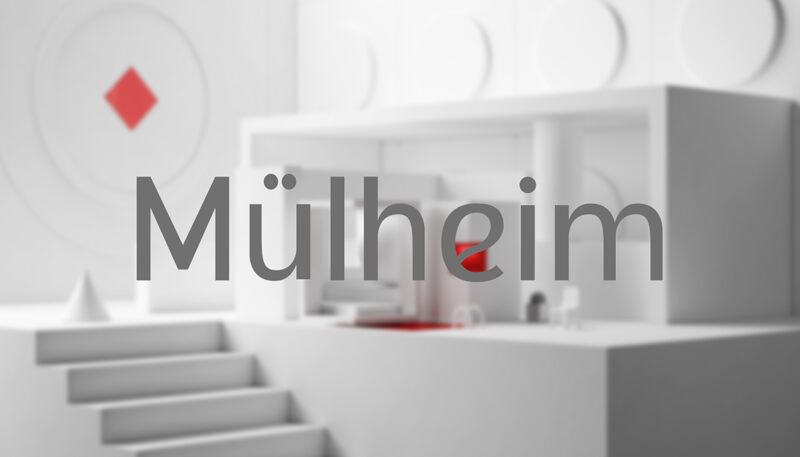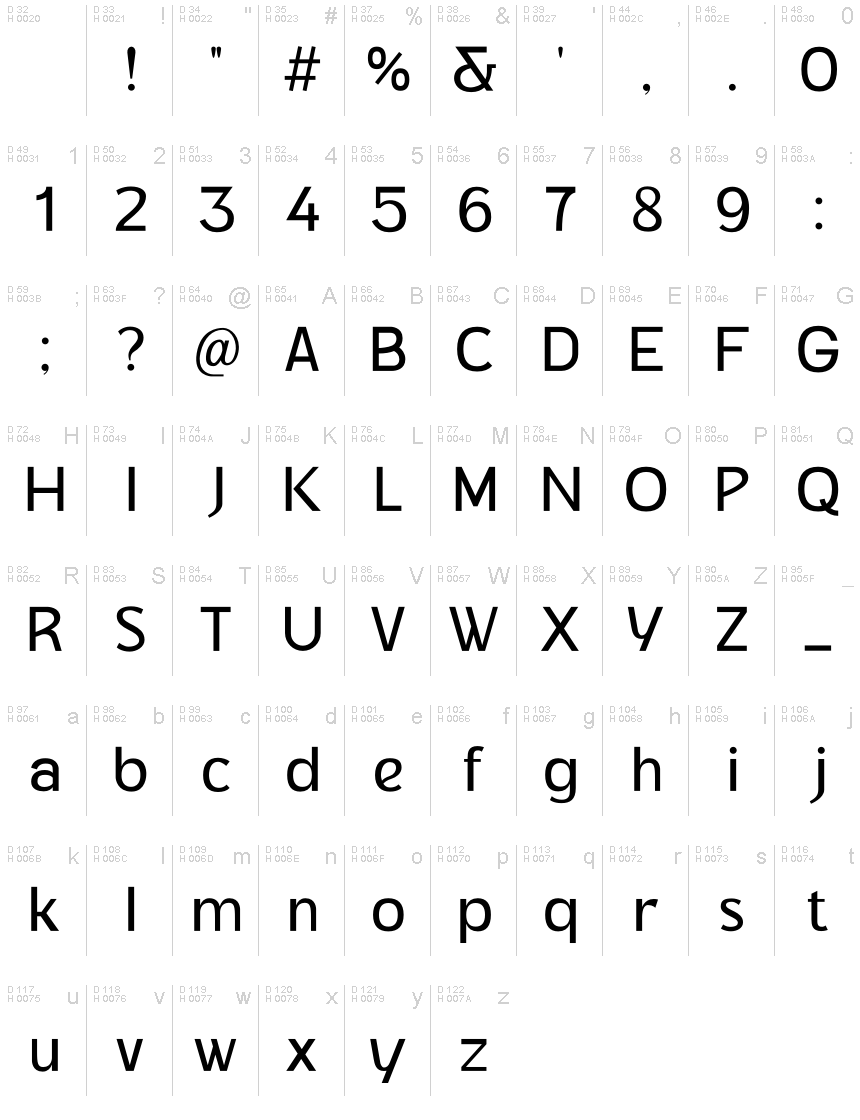
Mulheim, crafted by the imaginative Mocha Frappuccino, stands as a testament to the timeless elegance of sans serif fonts. Its sleek lines and unembellished forms give it a modern aesthetic that speaks with clarity and sophistication. The font dances between bold presence and graceful subtlety, making it versatile for various design territories.
The distinctiveness of Mulheim lies in its harmonious balance, ideal for conveying messages with both impact and refinement. It's well-suited for branding projects, editorial layouts, and digital platforms seeking a blend of contemporary style with effortless legibility. Whether gracing the cover of a cutting-edge magazine or anchoring the navigation of an innovative app, Mulheim is poised to leave an indelible mark on any creative work it accompanies.